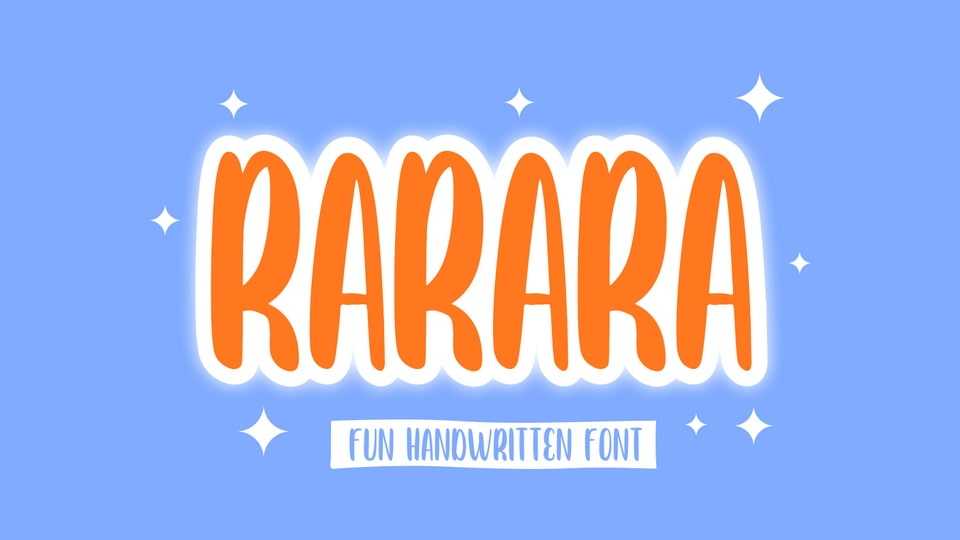
Download Rarara font, a hand drawn typeface inspired by modern and ligature characters. It is especially designed for cartoon, playful, kids projects.